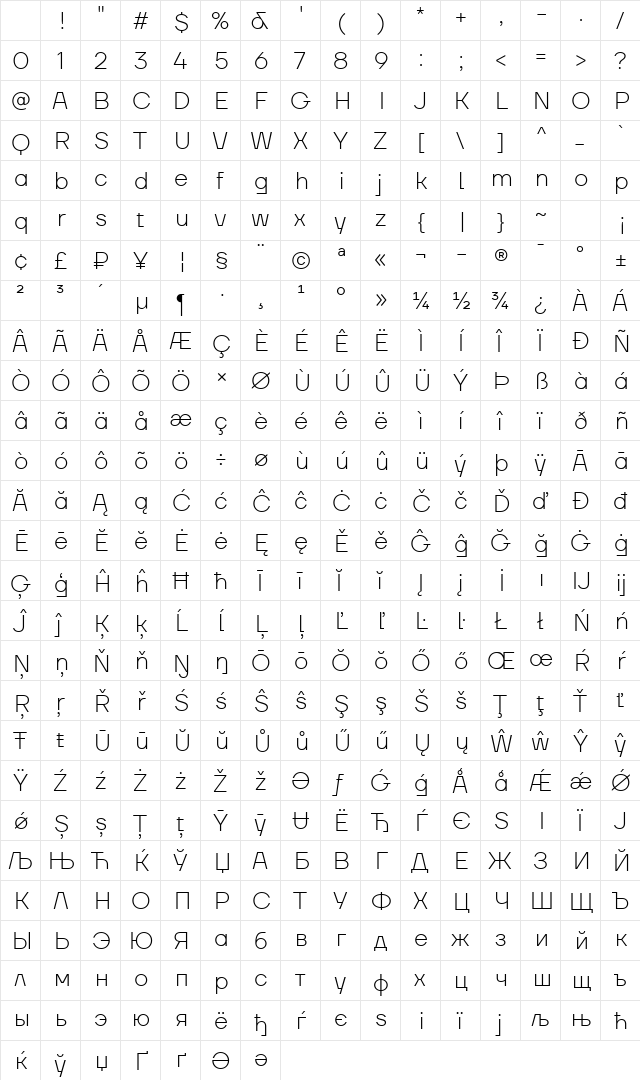
Complete TT Firs Neue Trl ExtraLight glyph index. Displaying only characters natively supported by TT Firs Neue Trl ExtraLight font.
TT Firs Neue Trl is a composed and adaptable typeface that performs quietly and consistently across a wide range of design contexts. Its slender proportions lend an understated elegance to any composition.